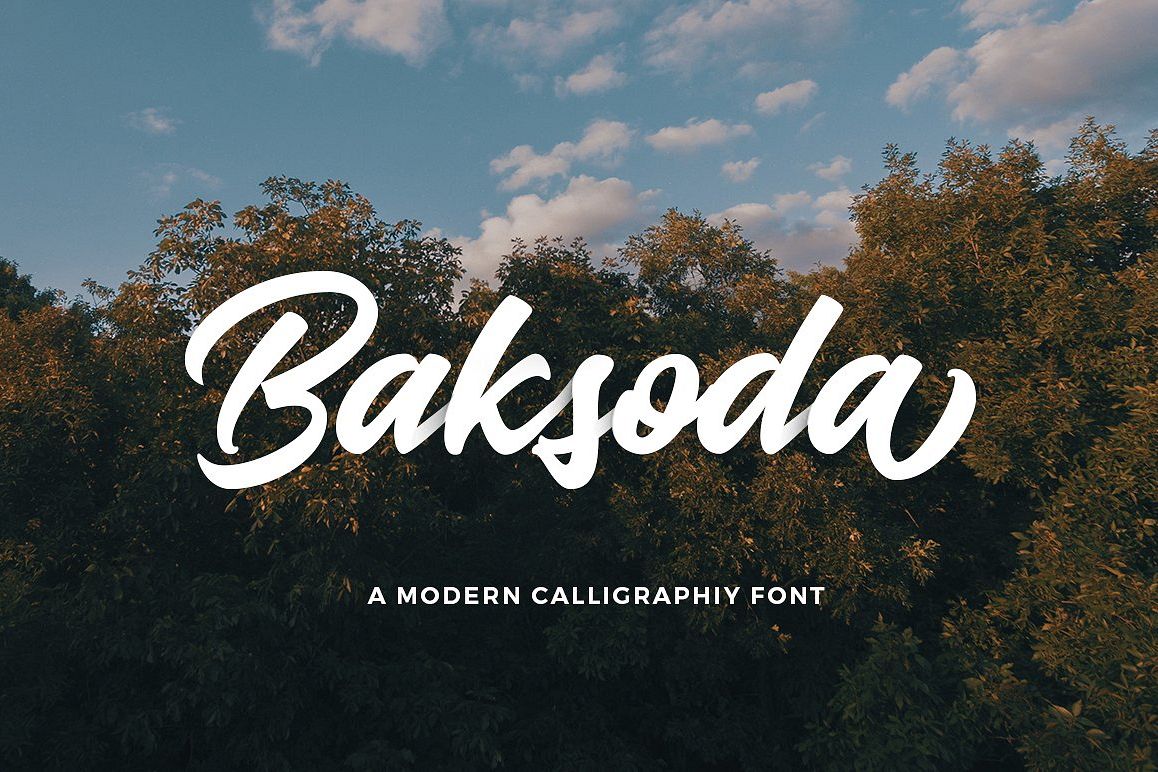
Baksoda
Baksoda is a hand-lettering script font with a clear style and dramatic movement this font is great for your next creative project such as logos, printed quotes, invitations, cards, product packaging, headers, Logotype, Letterhead, Poster, Apparel Design, Label, and etc.
Baksoda comes with uppercase, lowercase, numerals, punctuations and so many variations on each character include opentype alternates, common ligatures and also additional swash to let you customise your designs.